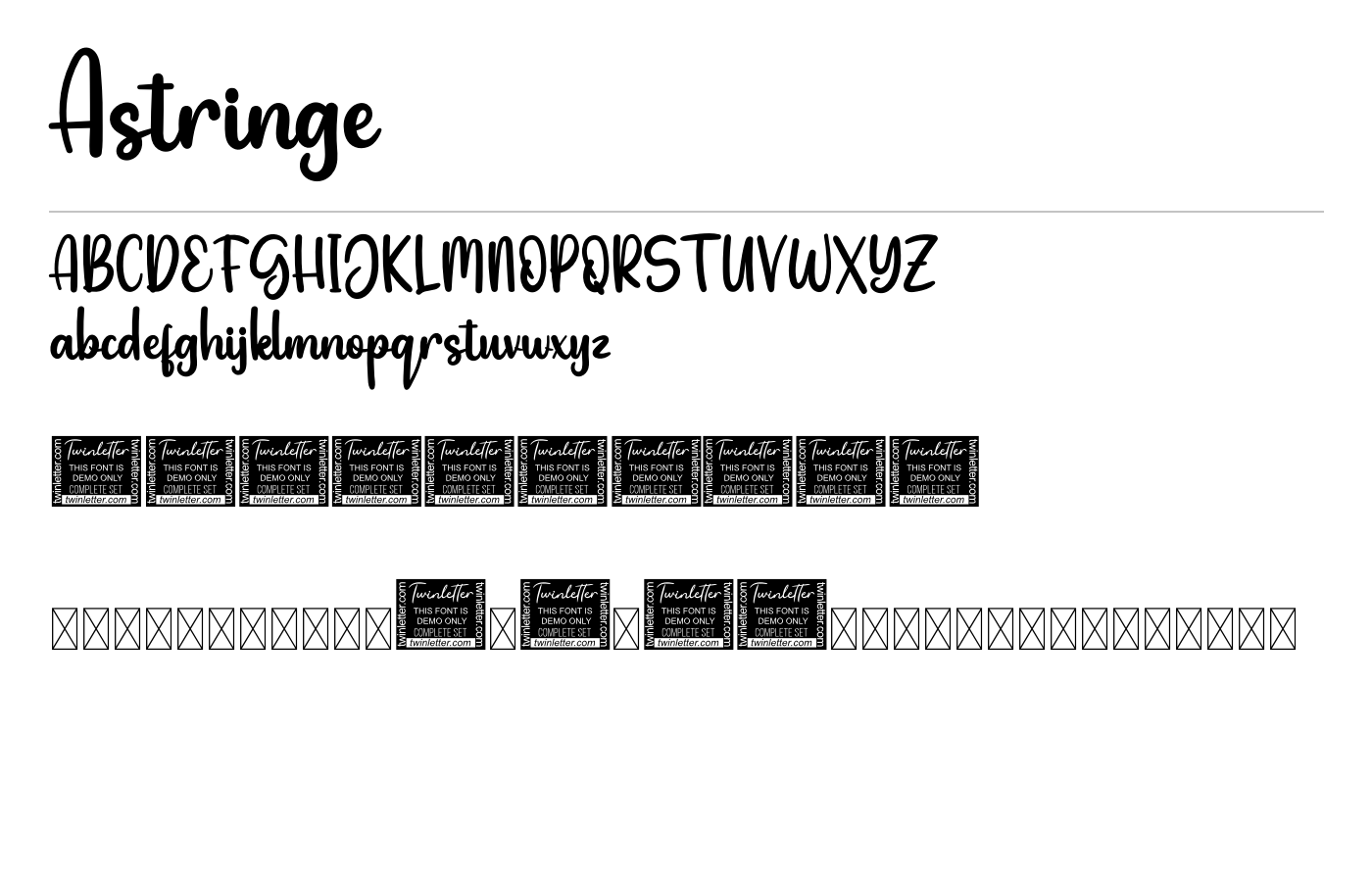
Astringe is a lively and playful handwritten script font characterized by its tall, narrow letterforms and smooth, rounded strokes. Its casual yet elegant style makes it perfect for creative projects, such as branding, invitations, and social media graphics, where a friendly and approachable tone is desired. The font’s unique blend of dynamic curves and neat structure ensures readability while adding a personal, handcrafted touch.
Astringe Font
About Astringe Font